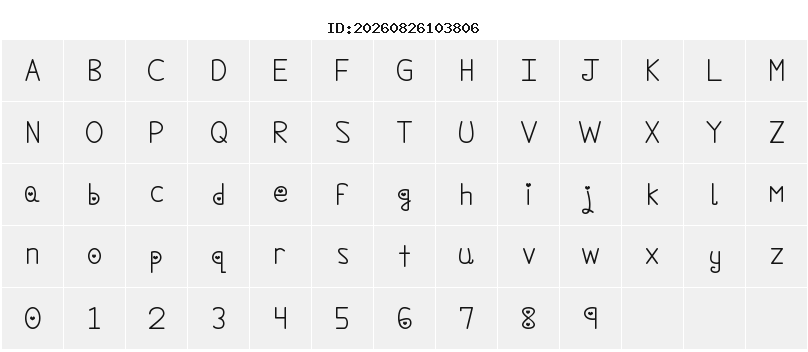
• Font Name: We Are In Love
• Designer: MiffinFonts
We Are In Love.ttf is a modern, elegant sans-serif font designed for ultimate readability and visual harmony. Perfect for branding, headlines, web design, and print materials.